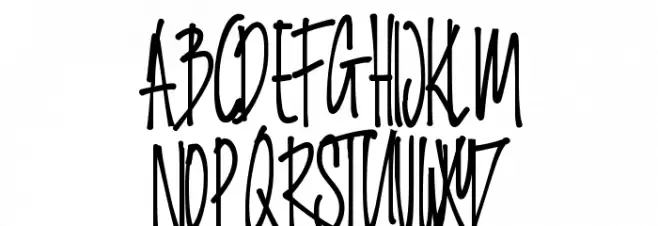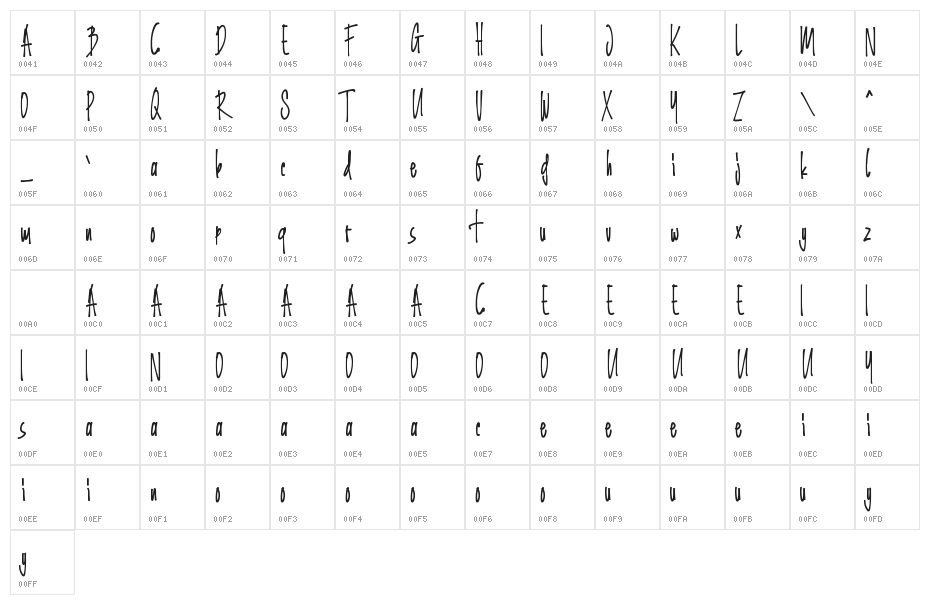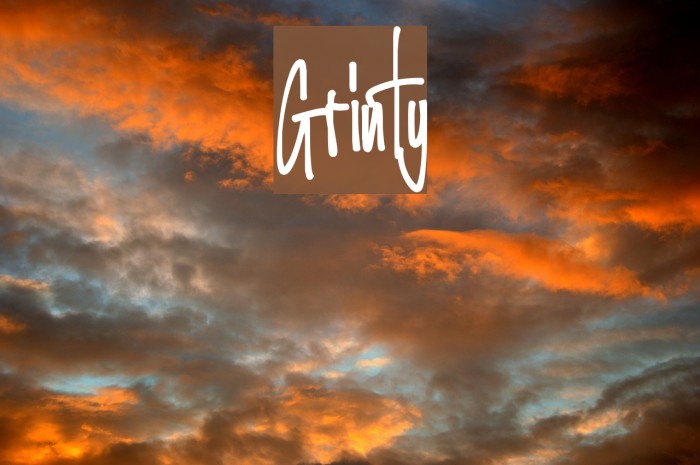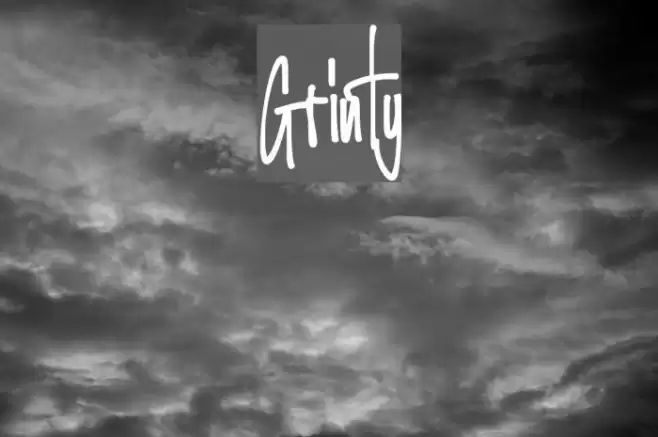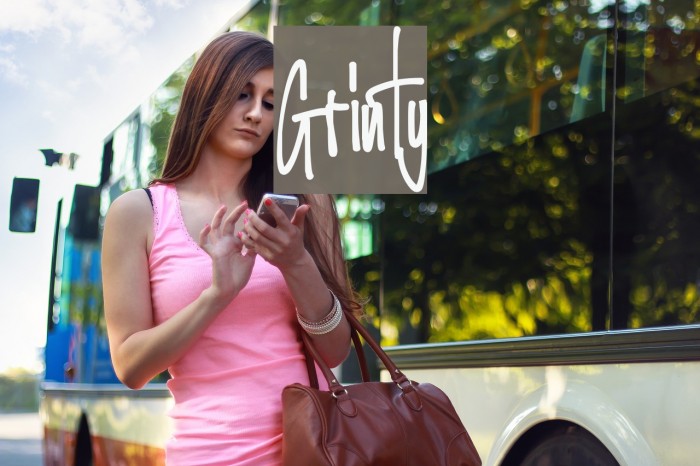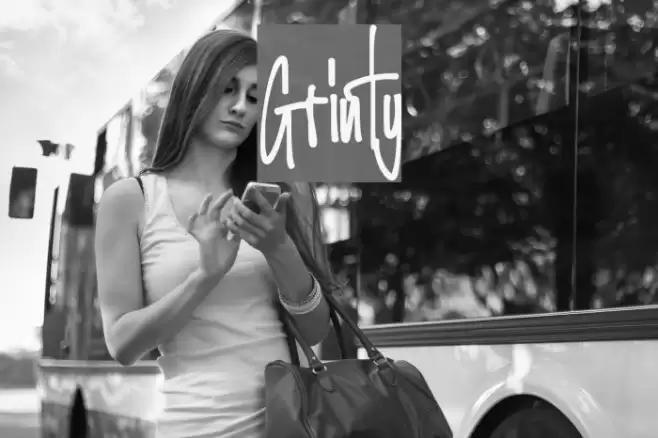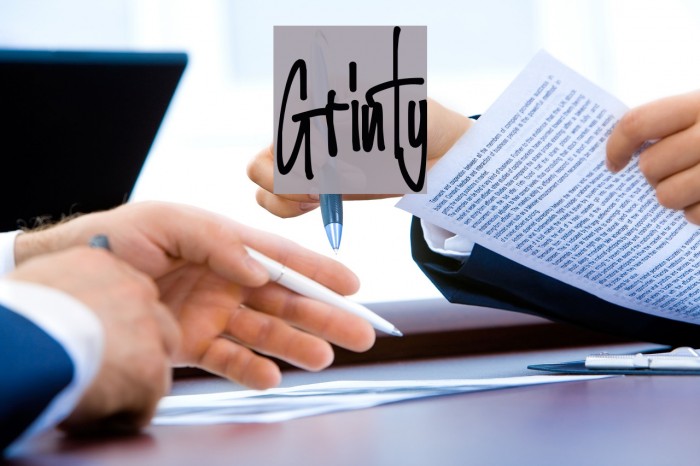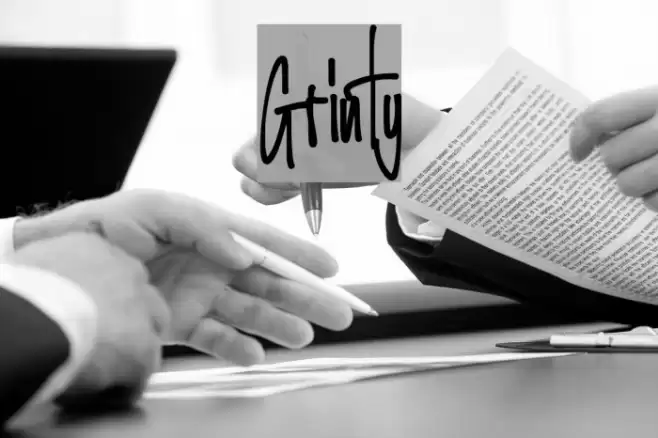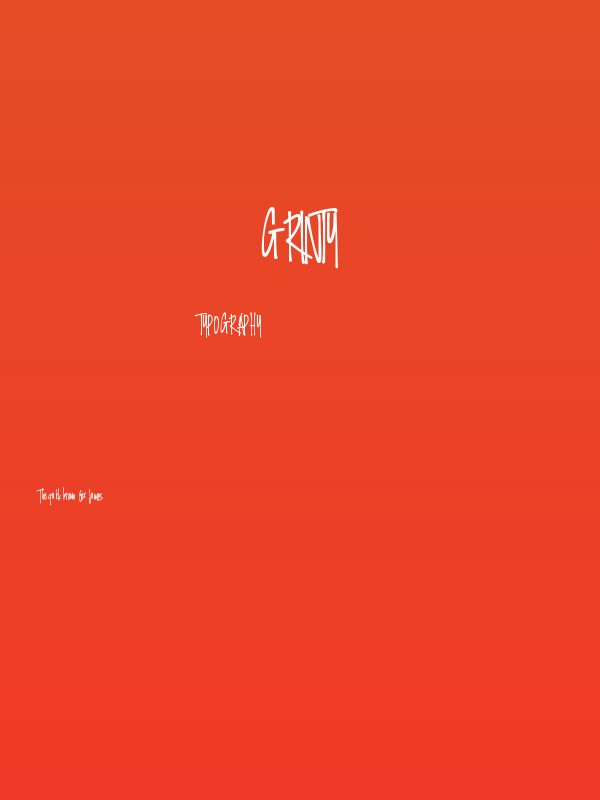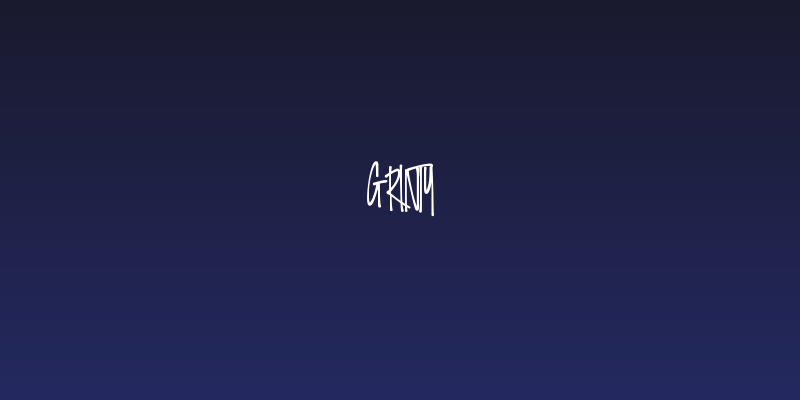
Grinty Font
Grinty Description
This font features a dynamic, handwritten style with a playful and energetic appearance. The letters are tall and narrow, with a slightly irregular baseline that adds to its casual charm. The strokes are bold and expressive, giving each character a unique personality. The uppercase and lowercase letters maintain a consistent style, while the numbers and special characters blend seamlessly into the overall design. This font's lively and informal nature makes it suitable for creative projects that require a personal touch.
| Proposed Projects | Ideal for greeting cards, posters, branding projects, and social media graphics. |